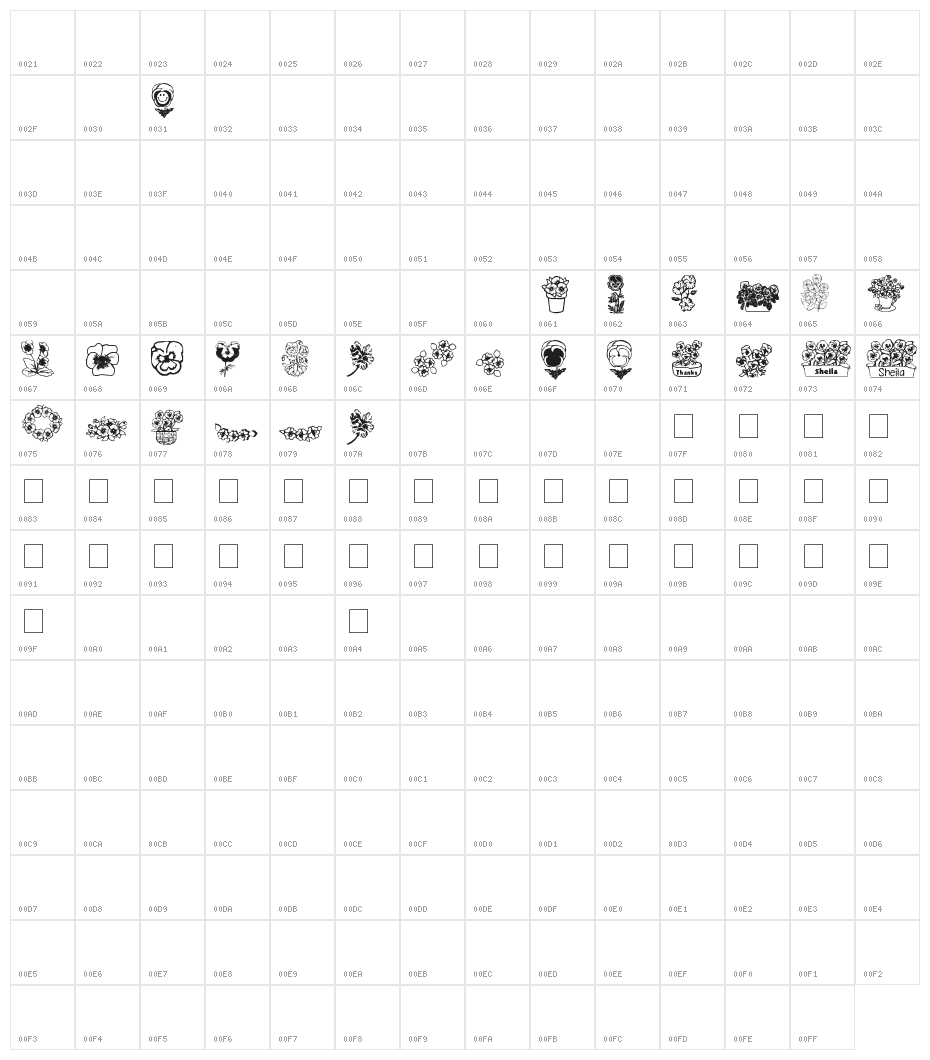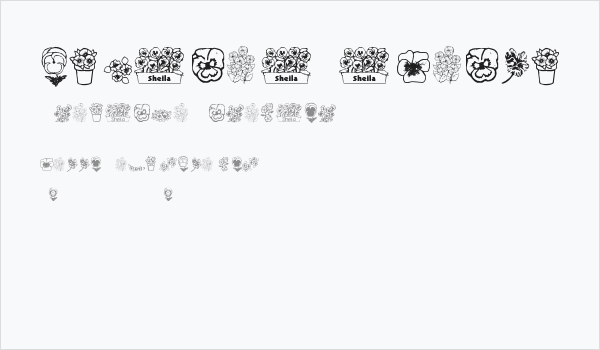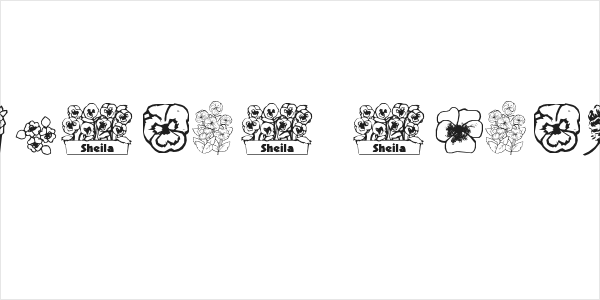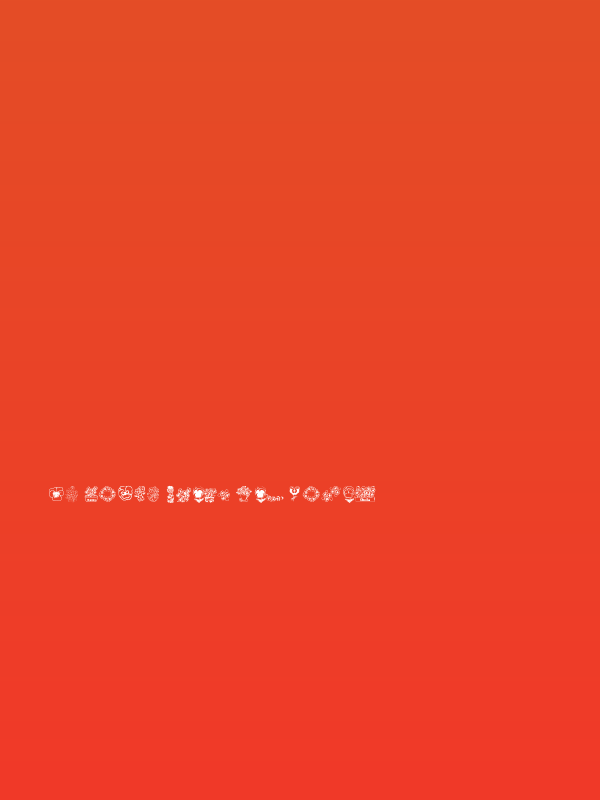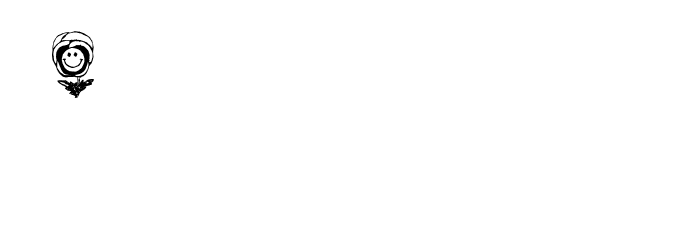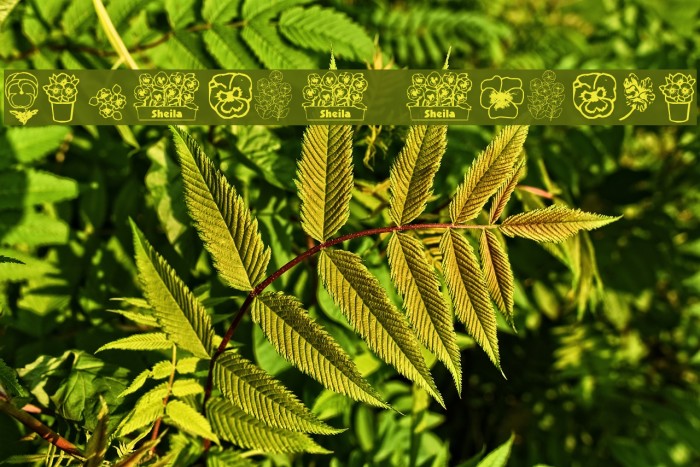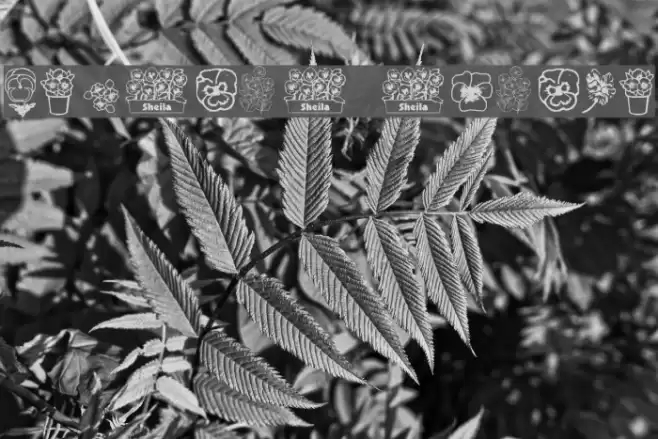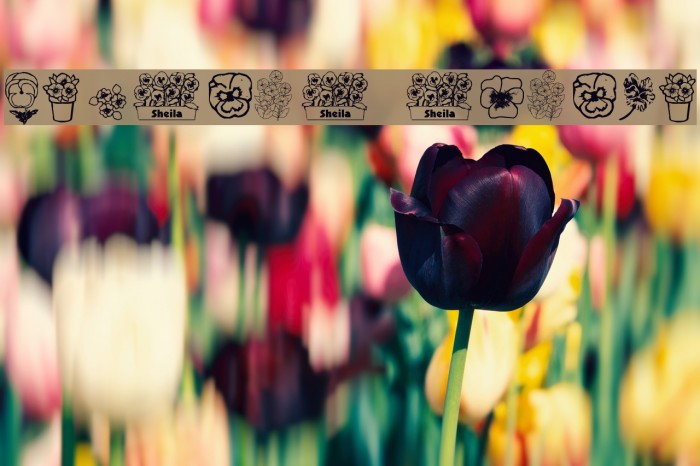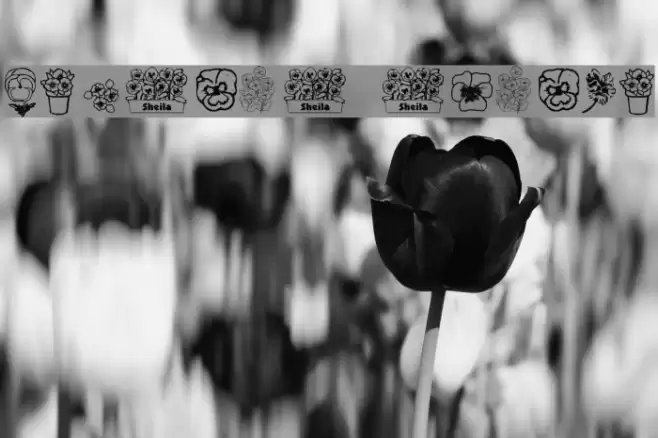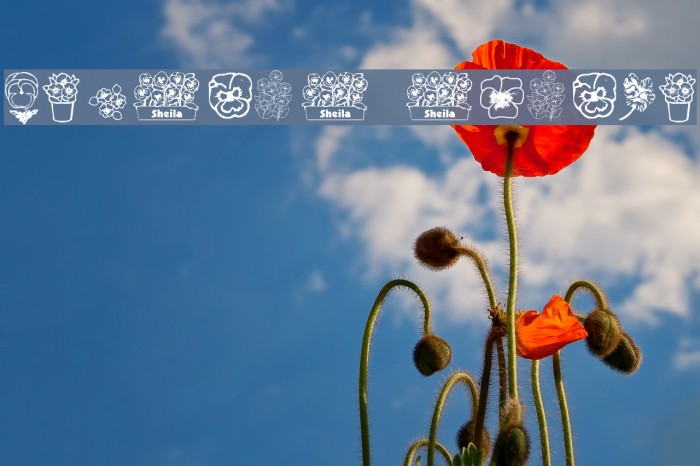
pansies4sheila Font
pansies4sheila Description
A decorative dingbat set featuring various pansy flower illustrations, arrangements, and floral motifs, some with text elements like 'Thanks' and 'Sheila.' The designs are detailed, hand-drawn, and primarily black and white, suitable for embellishments.
| Overall Style | Decorative, Hand-drawn, Playful |
| Use Case | Decorative elements, Borders, Craft projects, Themed stationery |
| Proposed Projects | Greeting cards, scrapbooking, decorative borders, invitations, floral-themed crafts. |